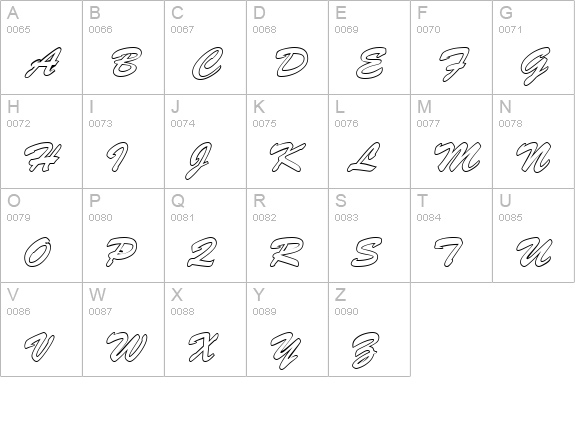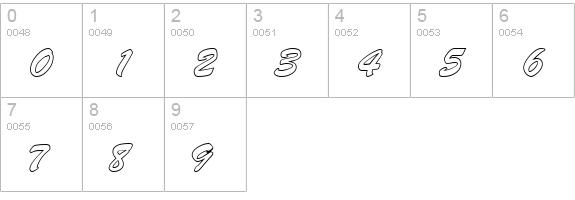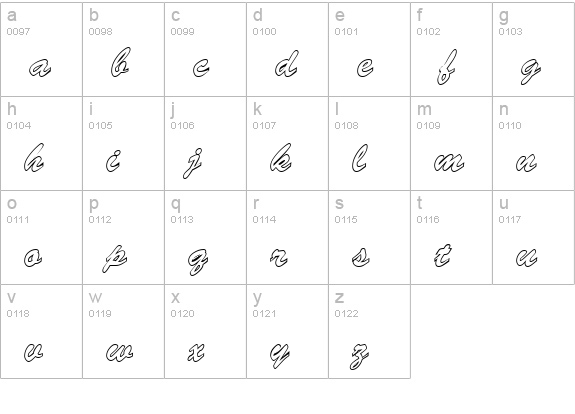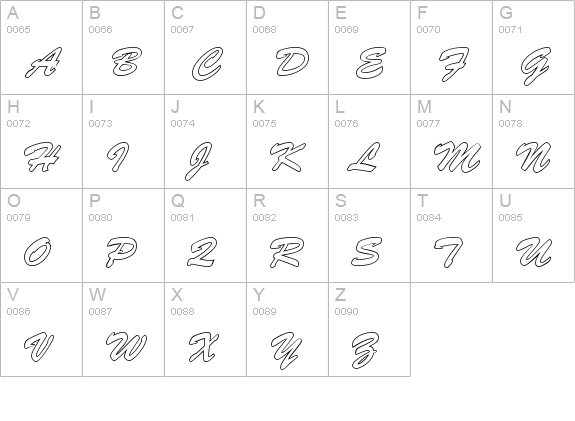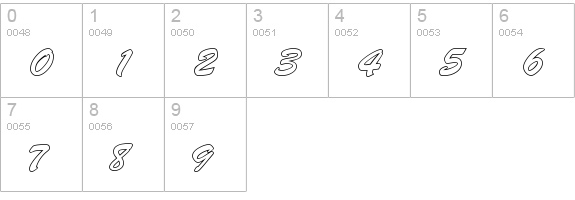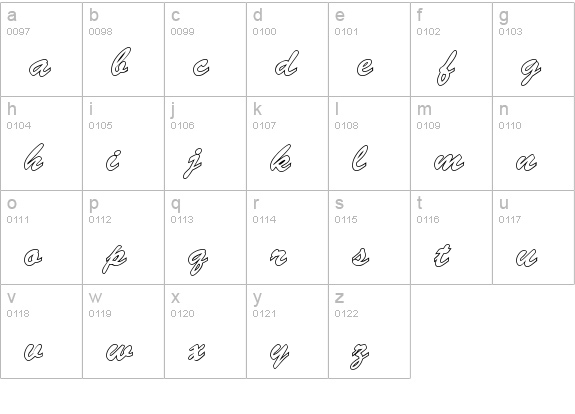
TropicalOpen font is a fresh and vibrant typeface that brings to mind the lush beauty of tropical paradise. Its playful curves and flowing lines evoke a sense of relaxation and tranquility, making it the perfect choice for designs that aim to capture the essence of the tropics. This font exudes a carefree and exotic vibe, making it ideal for a wide range of projects, from branding to social media graphics. Best of all, TropicalOpen font is completely free to download at FontsMarket.com. This means that you can add a touch of tropical flair to your designs without having to spend a dime. Whether you're working on a personal project or a commercial endeavor, this font is sure to bring a touch of sunshine and warmth to your work. Download TropicalOpen font today and let your creativity flourish in the tropical breeze!